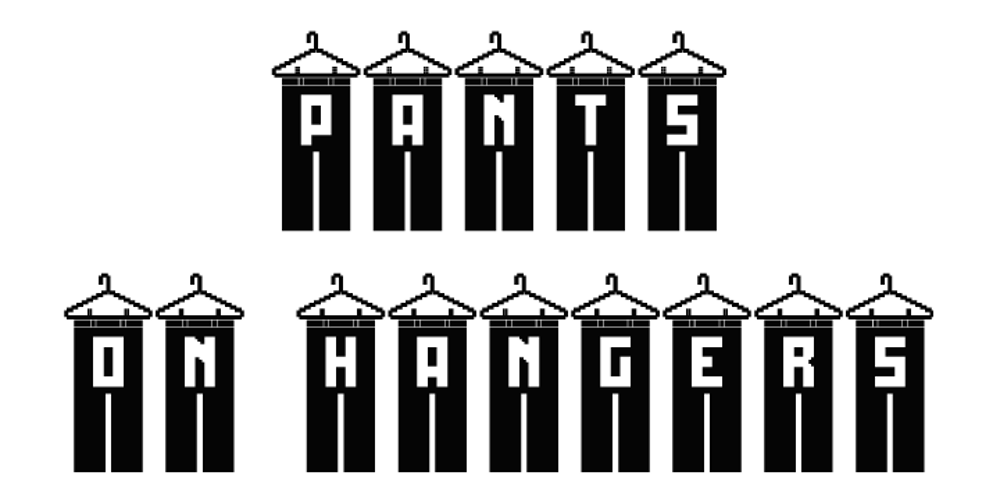
On Hangers Font Family was designed by Wilson Thomas and published by Funk King. On Hangers contains 4 styles and family package options. The On Hangers family is a collection of fonts consisting of font-bats on hangers. Upper-case are on hangers and lower-case are not. Mix and match and have fun.